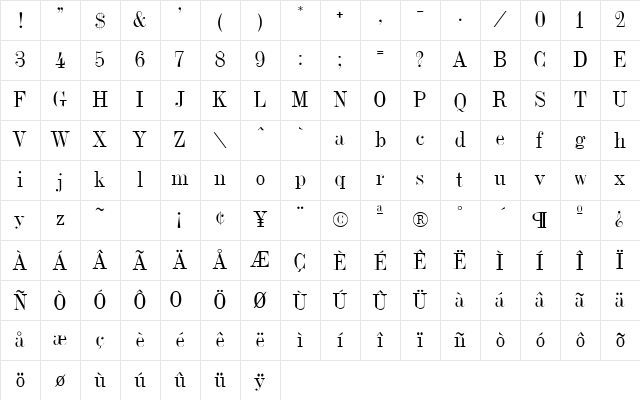
Dubiel Regular Free Font
Dubiel Regular
Design Context for Dubiel
Dubiel is a composed and adaptable typeface that performs quietly and consistently across a wide range of design contexts.